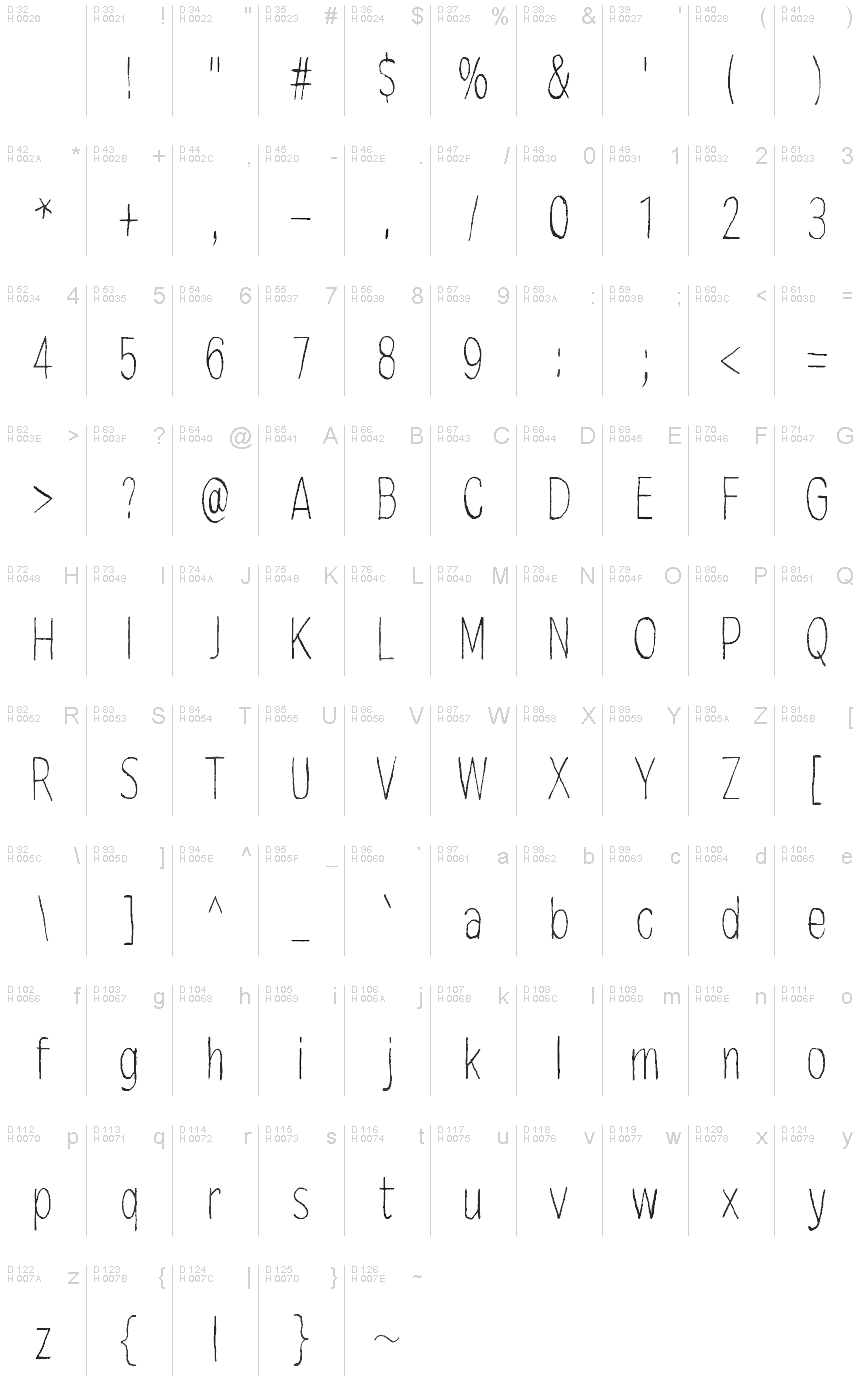
Mindmonkey
Mindmonkey is a captivating handwritten font that exudes a sense of playfulness and personality. Its light, condensed strokes create an effortless, almost casual aesthetic, making it an ideal choice for projects that seek to convey a whimsical, informal vibe.
The font's unique character shines through in its irregular, slightly slanted letterforms, which lend an organic, hand-crafted feel to any design. Mindmonkey's versatility extends across a range of applications, from branding and packaging to editorial layouts and social media content, where its distinctive style can elevate the visual appeal and add a touch of charm.